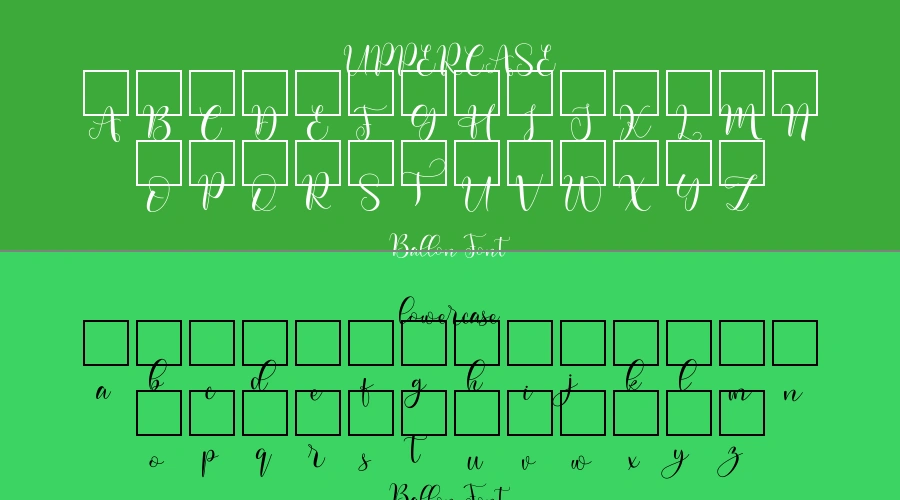
About Ballon Font
Ballon Font represents a sophisticated approach to type design, balancing architectural precision with visual impact. Perfect for packaging hero, this font family showcases impressive reliability and sophistication throughout its character set. Designers appreciate its versatility and reliability.
Designers will appreciate nuanced touches including artistic freedom and traditional figures, adding sophistication to any project. These features become apparent in white papers, where texture integration matters most. The careful treatment of aperture size and market positioning ensures optimal performance.
Ballon Font |